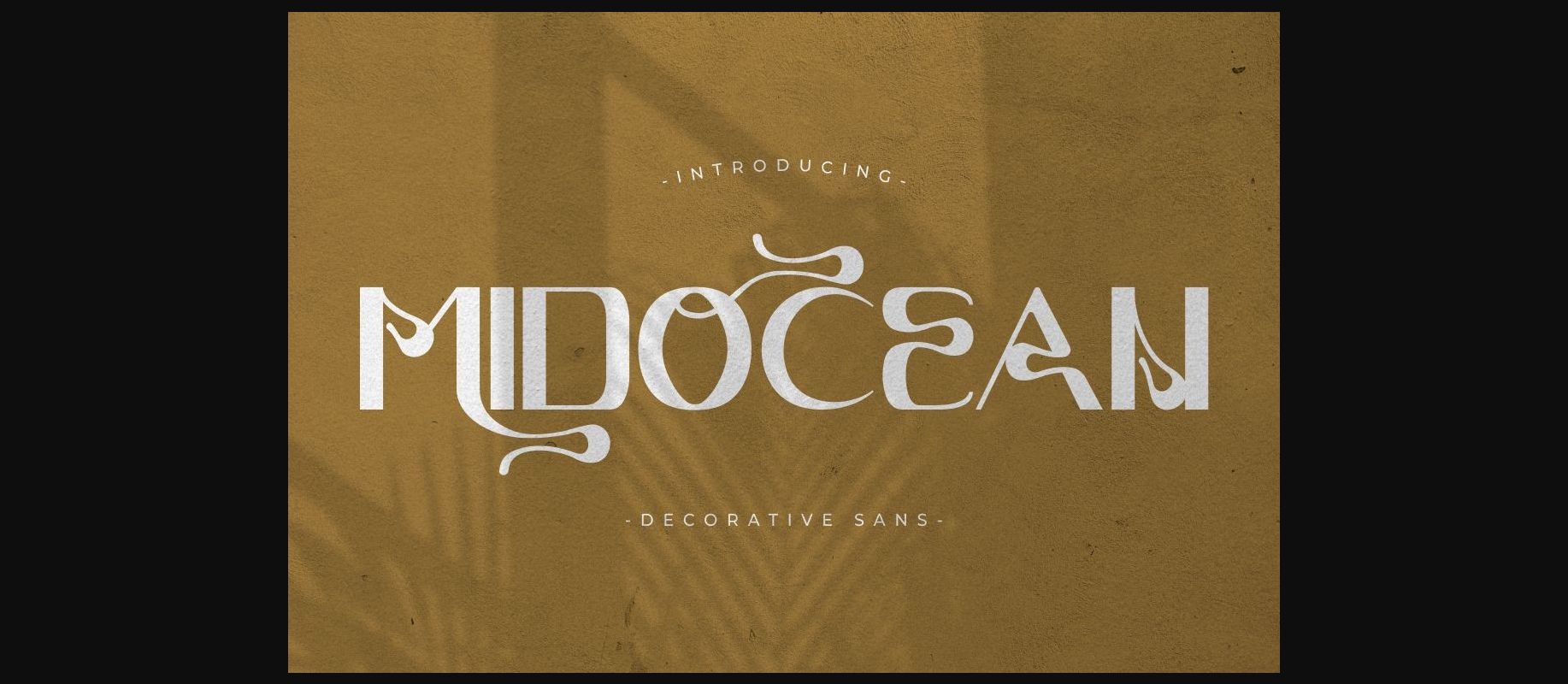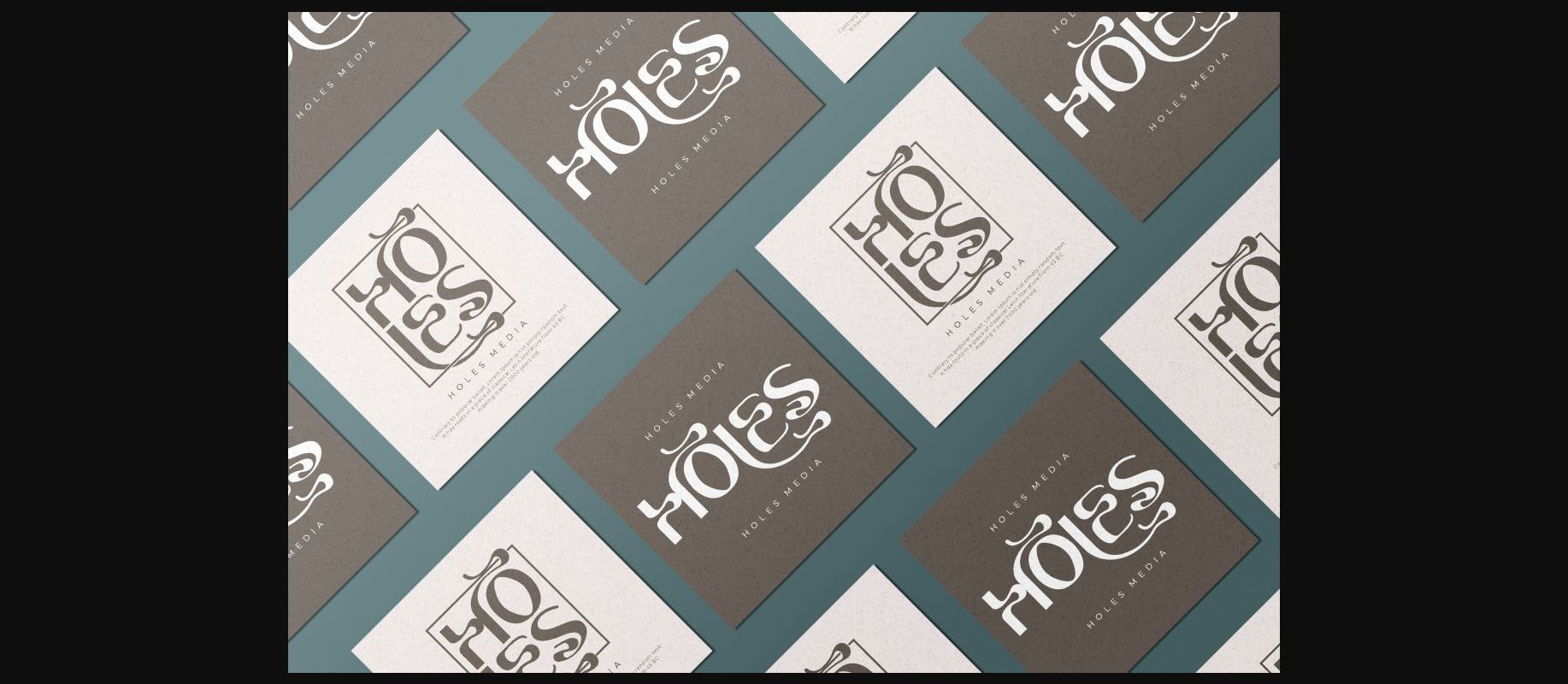
About Midocean Font
Inspired by unique typography and lettering in the Javanese alphabet combine with typography style.
Midocean is best used for Logotype, headings, covers, posters, logos, quotes, product packaging, header, merchandise, social media & greeting cards, and many more.